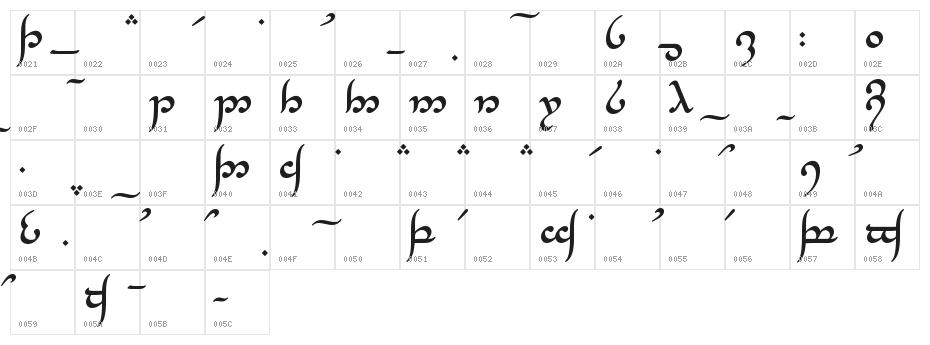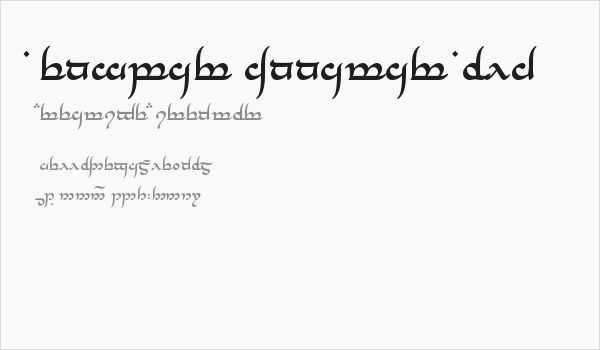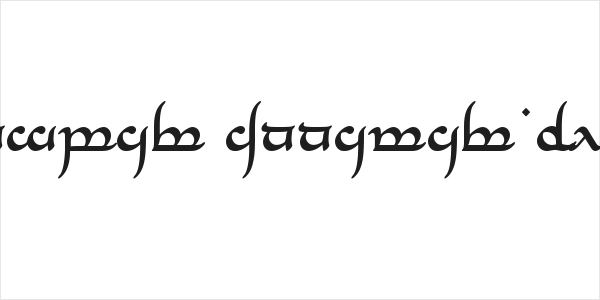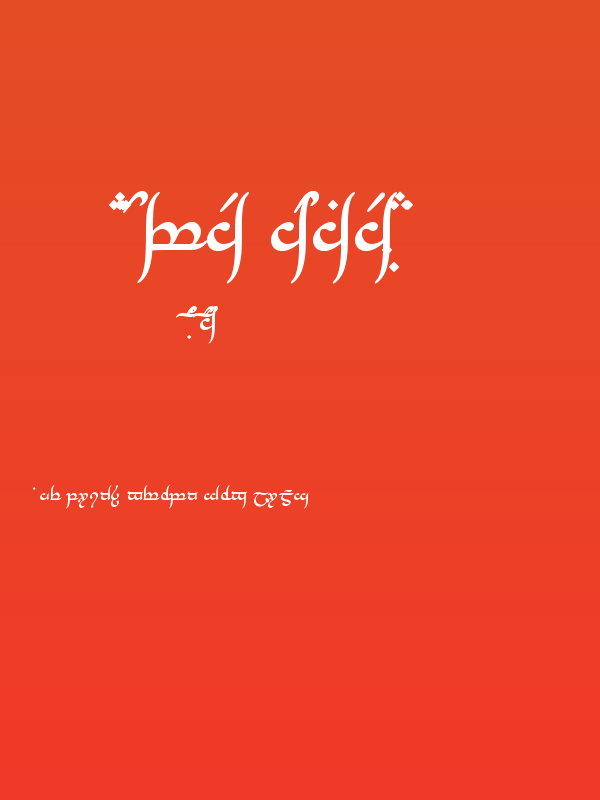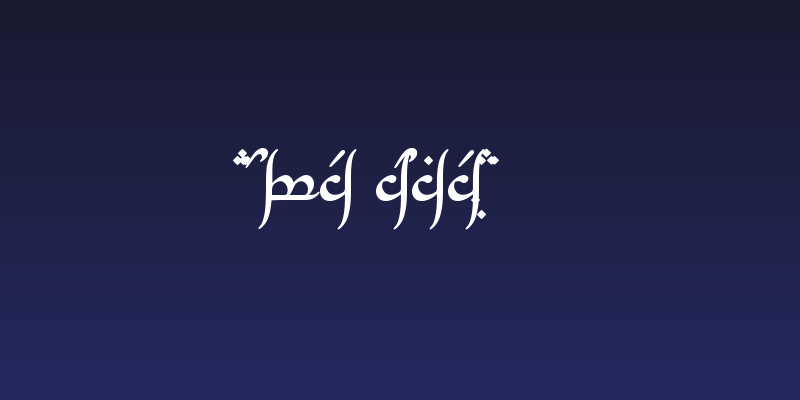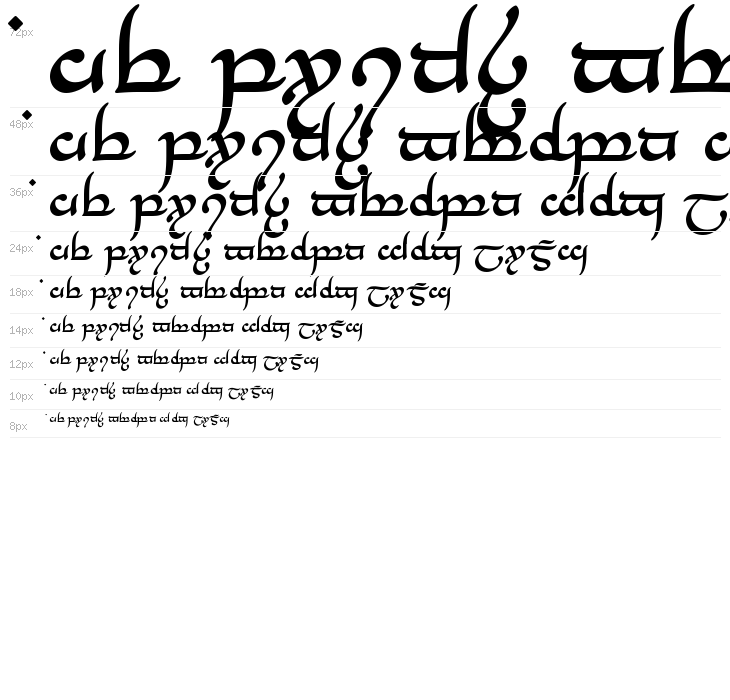
Tengwar Annatar Bold Font
Tengwar Annatar Bold Description
This font is a decorative script inspired by the fictional Elvish writing system. It features intricate, flowing lines and ornate details, capturing a mystical and ancient aesthetic. The characters are highly stylized, with unique shapes that resemble calligraphy. The overall appearance is elegant and artistic, making it suitable for fantasy-themed projects. The font's design emphasizes curves and flourishes, creating a sense of movement and fluidity. It is not intended for standard text but rather for decorative purposes where a touch of fantasy is desired.
| Use Case | Logos, Titles, Decorative text |
| Proposed Projects | Ideal for fantasy-themed projects, book covers, movie titles, or game design. |